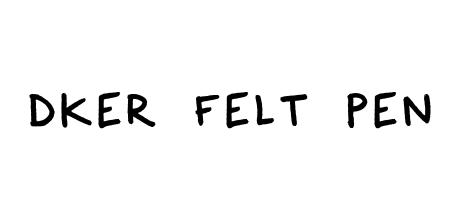
Felt Pen
Felt Pen is a bold, hand-drawn typeface. Its irregular, slightly jagged edges mimic the natural strokes of a felt-tip marker, creating a playful, energetic feel. The letters are slightly condensed, giving the word a compact, punchy look, conveying a sense of immediacy and casualness. The font is clearly expressive, suitable for titles or short text requiring a handmade aesthetic.